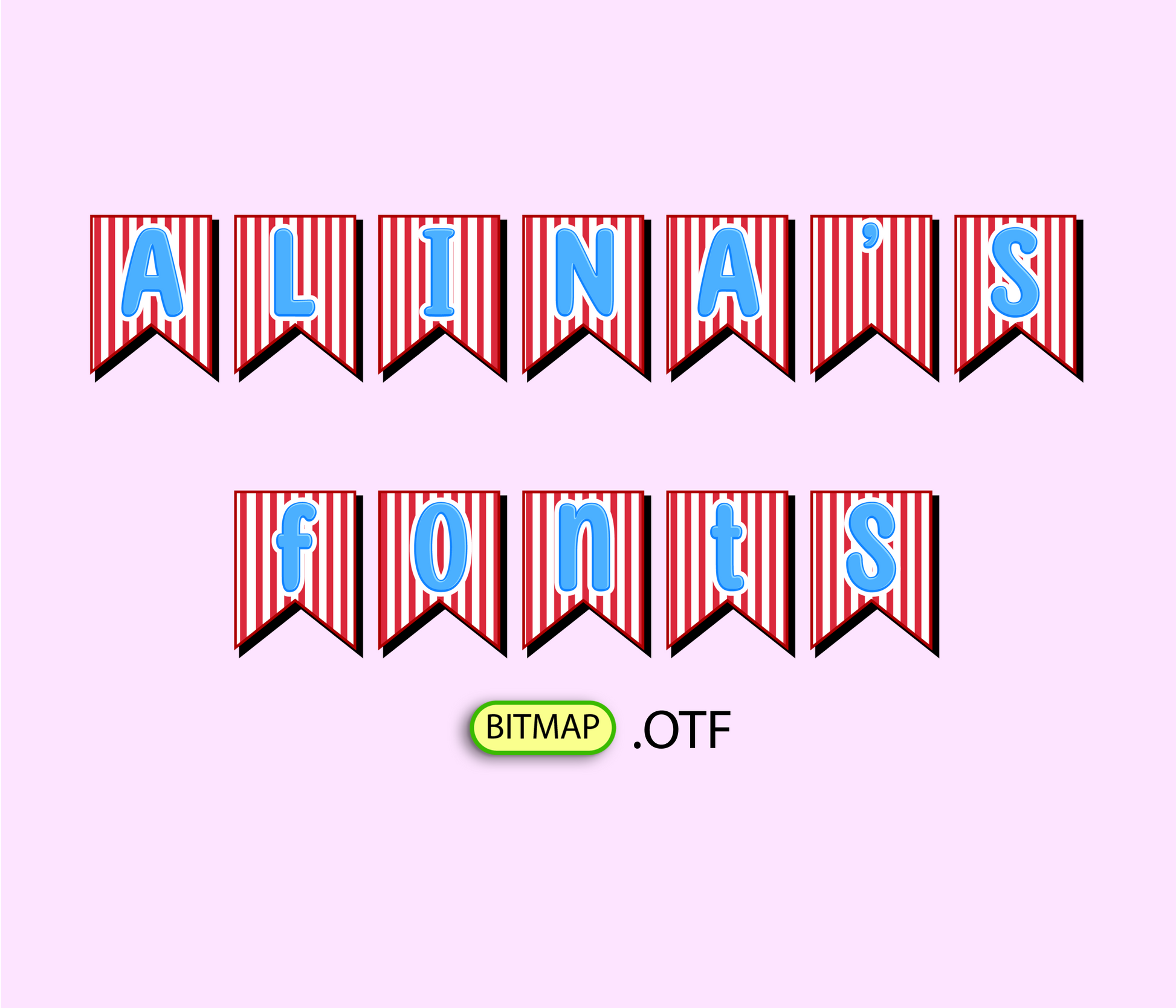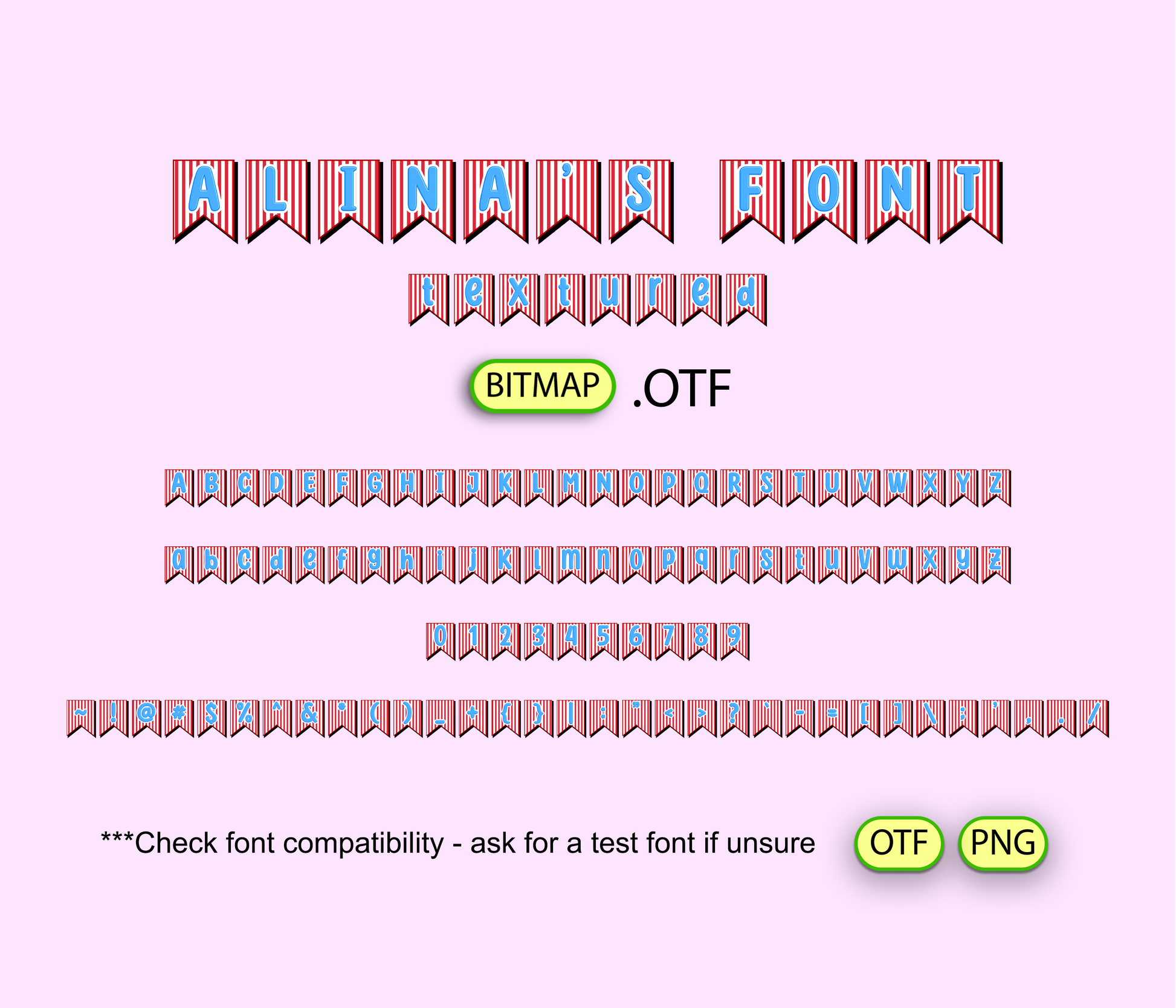
Red White Parade Banner Font Textured
Step into the marching cadence of joyful street procession and vibrant patriotic parade culture with our Red White Parade Font Textured, capturing the essence of drumline excitement and legendary main street celebration march narratives. Perfect for Independence Day parade planners, community celebration coordinators, festive march event organizers, and vibrant design specialists, this font brings the bold, marching character of beloved patriotic street procession narratives to your projects. Create marching-worthy invitations, commercial goods, or web content with the vibrant presence of community parade celebration storytelling.
Vibrant Typography for Independence Day & Patriotic Parade Projects
Our Red White Parade Font Textured features bold, marching-cadence letterforms with vibrant drumline textures reflecting the world of legendary main street processions and iconic community celebration marches.
- Event Promotions: Craft marching-worthy invitations, banners, and party decorations for Independence Day parades, community street celebrations, and festive march gatherings that radiate the vibrant spirit of legendary patriotic procession entertainment
- Merchandise Design: Perfect for apparel, wall prints, adhesive graphics, and parade collectibles that showcase the vibrant aesthetic of marching cadence and community celebration themes
- Digital Media: March across websites, content channels, and social platforms with vibrant header designs and imagery that express the festive wonder of legendary Independence Day parade festivities
- Creative Content: Add signature marching flair to parade illustrations, procession artwork, and imaginative projects inspired by beloved community celebration march chronicles
- Personal Projects: Stir vibrant marching energy into memory albums, handcrafted items, and living space decorations inspired by the world of legendary patriotic parade celebration characters
Our font pays tribute to the world of marching cadence wonder and generation-spanning community parade celebration culture, empowering your projects with its bold and vibrantly festive character. Whether crafting Independence Day materials, designing parade products, or adding a community march touch to personal projects, this font communicates the vibrant essence of patriotic parade magic. Ready to march vibrant celebration into your creations? This font is your key to attention-grabbing, impactful design.